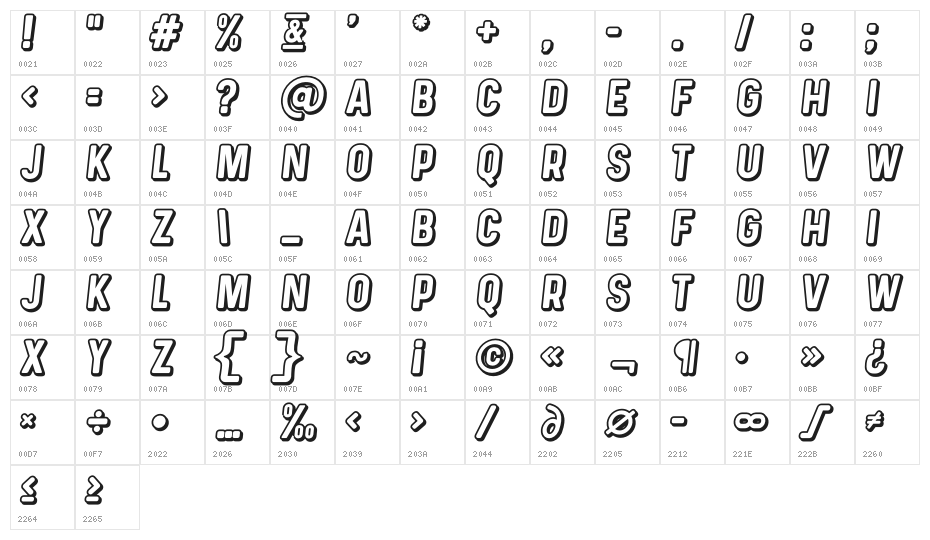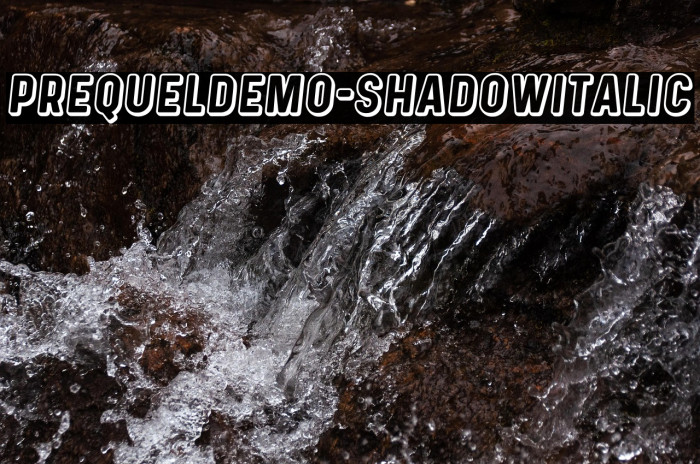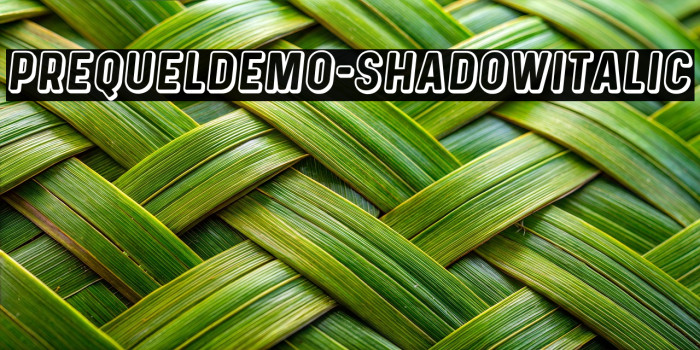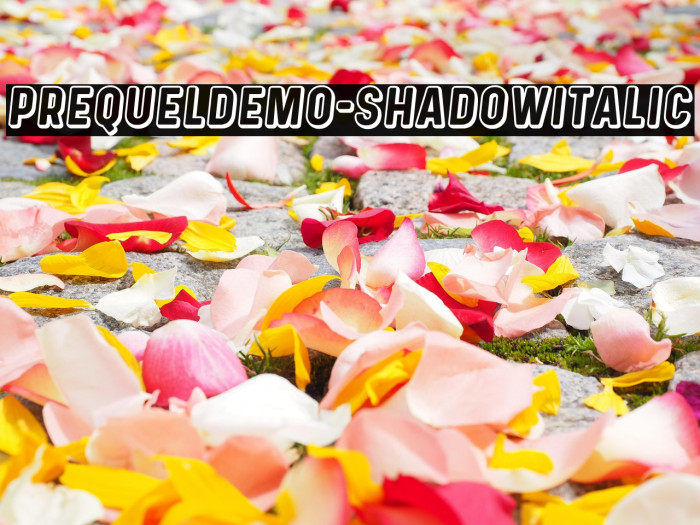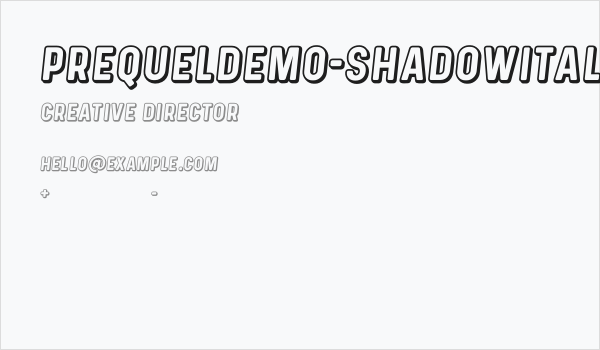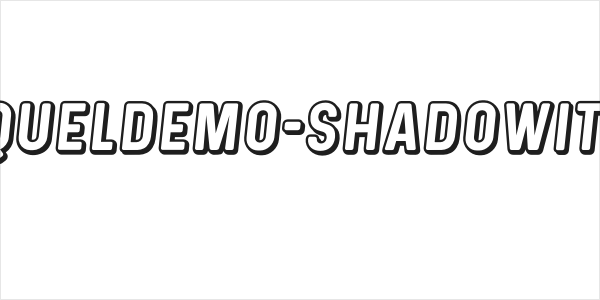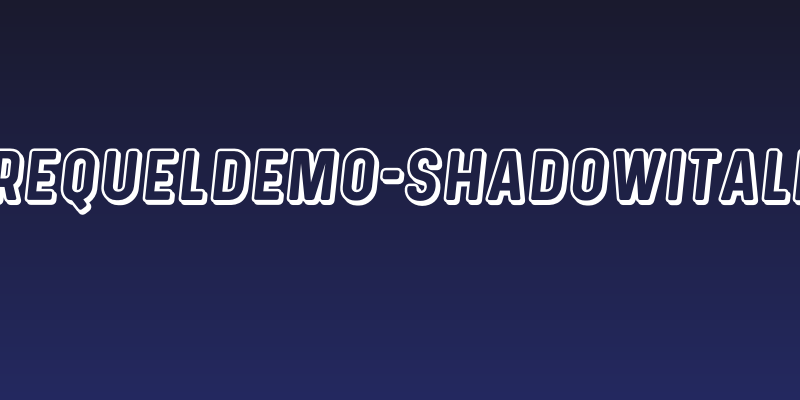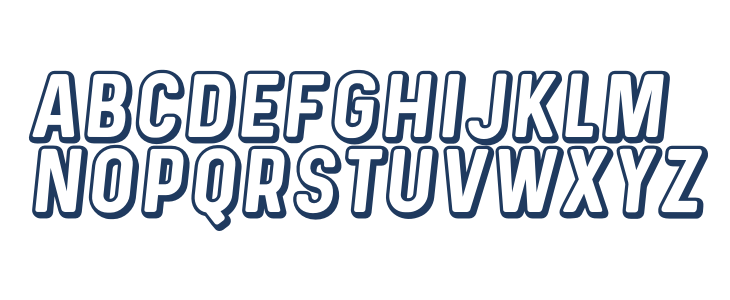
PrequelDemo-ShadowItalic Font
PrequelDemo-ShadowItalic Description
This font features a bold, shadowed style with a distinct italic slant, giving it a dynamic and eye-catching appearance. The uppercase letters are prominently outlined, creating a three-dimensional effect that enhances its visual impact. The characters are well-defined with consistent stroke widths, contributing to a cohesive and structured look. The font's playful yet strong presence makes it suitable for a variety of creative applications. Its shadow effect adds depth, making it ideal for designs that require a standout element. The spacing between characters is balanced, ensuring readability while maintaining its decorative appeal.
| Proposed Projects | Ideal for posters, headlines, logos, and branding materials that require a bold and dynamic appearance. |